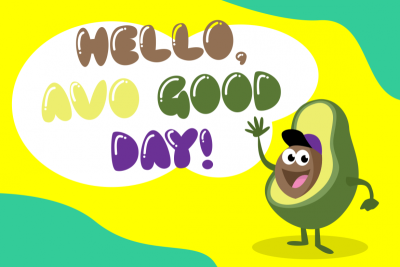
Bubble Font BABELGAMEE is a vibrant, eye-catching typeface perfect for adding fun to any project. The chunky, rounded letters look like inflated balloons or glossy candy, making them ideal for designs with a playful vibe. Each letter features shiny highlights that give the font a 3D, layered effect. This adds depth and makes the text pop on both screen and print. With its joyful design, this font instantly grabs attention and is great for youth-oriented projects.
This font is also highly versatile. Its bold, thick letters are easy to read, even at smaller sizes, while still maintaining their playful style. Whether used for headlines, logos, or digital content, BABELGAMEE stands out. Its glossy, layered texture gives it extra charm, making it a great choice for any design needing energy and vibrancy. From birthday invitations to posters, this font guarantees your message will be memorable.
BABELGAMEEโs lively design also makes it a central feature in any project. Its bold forms and attention-grabbing effects mean itโs more than just a fontโitโs a creative element that can elevate your entire design.
Bubble Font BABELGAMEE Perfect for
Bubble Font BABELGAMEE is ideal for designers targeting children, teens, or anyone who loves a playful look. Itโs perfect for brands that cater to younger audiences, such as toy companies, snack brands, or kids’ clothing lines. The fontโs bold, soft appearance conveys joy, making it great for logos, packaging, or ads in entertainment and leisure industries.
Itโs also a good fit for creatives in gaming or entertainment. The inflated style works well for video game titles, character branding, and merchandise. Its unique look ensures your designs stand out on screens or packaging.
Content creators on YouTube or Instagram will find BABELGAMEE useful for branding. Its dynamic, layered design works perfectly for thumbnails, banners, or intros. Itโs particularly effective for creators targeting younger audiences or those focused on gaming and animation.
In summary, Bubble Font BABELGAMEE is perfect for any designer wanting to add joy and fun to their projects. Its bold and versatile style makes it a standout choice for a variety of creative designs.